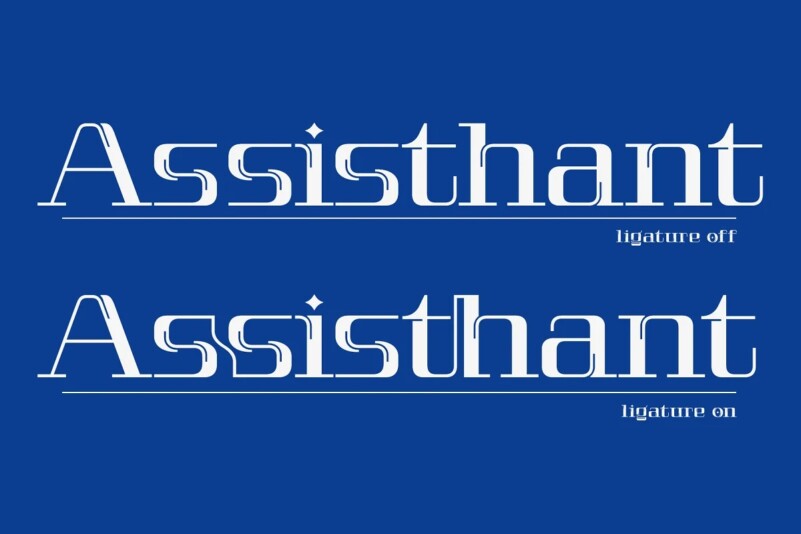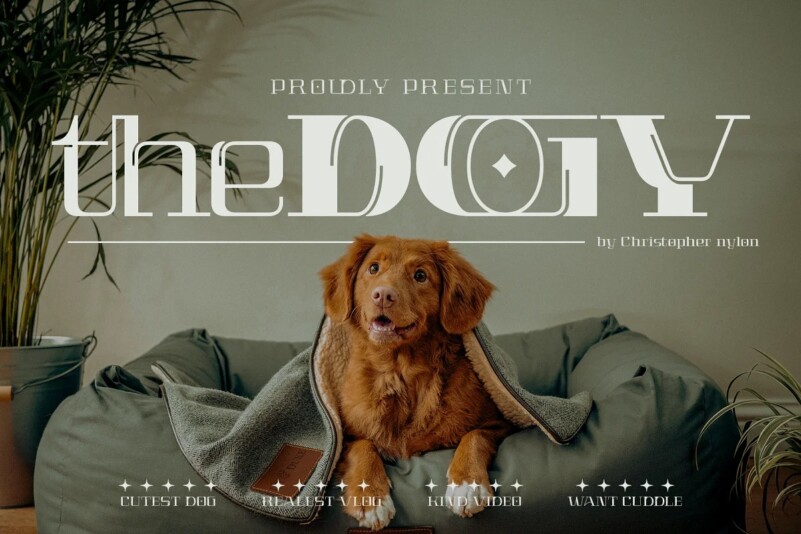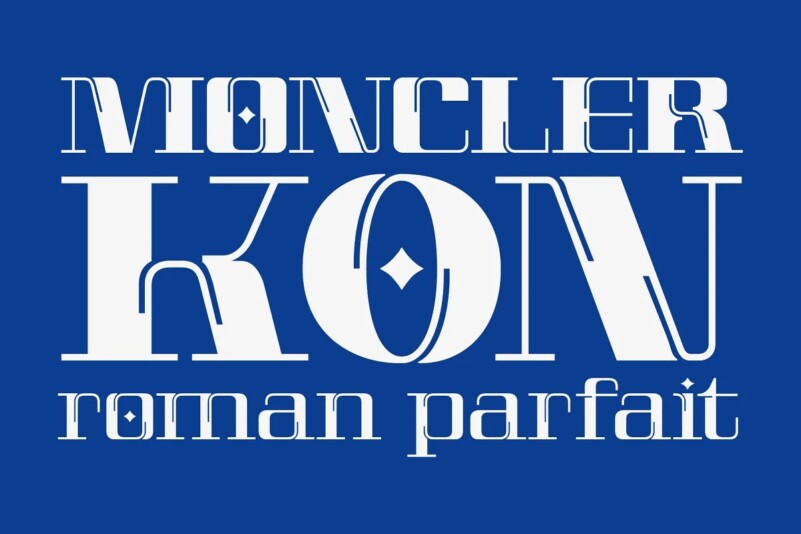
Astroviz Font
Astroviz Font is a well-shaped font that gives a retro power as a display typeface. Its deep ink traps are the defining feature that sets it apart, making it an ideal choice for creating captivating and memorable headlines that demand attention and leave a lasting impression.
While the ink traps are a prominent feature, Astroviz maintains an elegant and curvaceous design overall. Its letterforms are fluid and harmonious, with a balance of thick and thin strokes that give it a luxurious and sophisticated appearance.